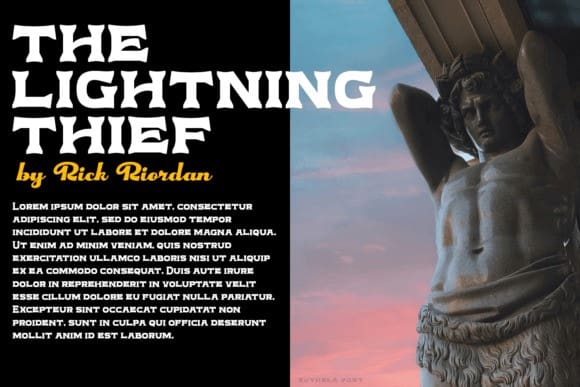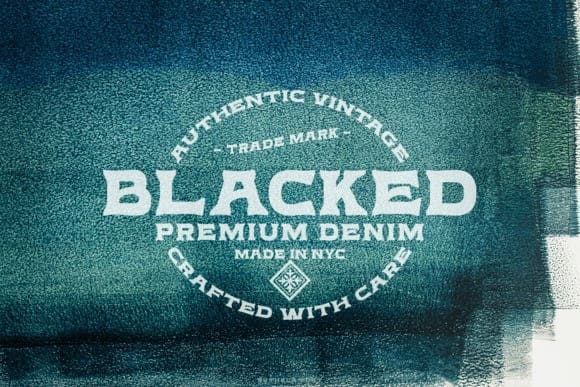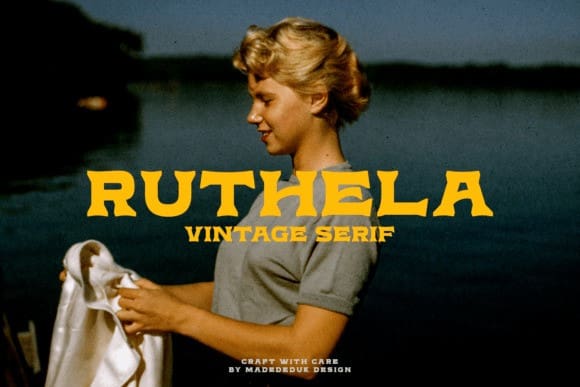
Ruthela Vintage Font
Ruthela Vintage Font, is a vintage font, that comes with single-weight, legible, and expressive shapes. You can explore and combine creating a rhythm for comfortable reading. A lot of stylish alternate characters will make this font suitable for any project design.